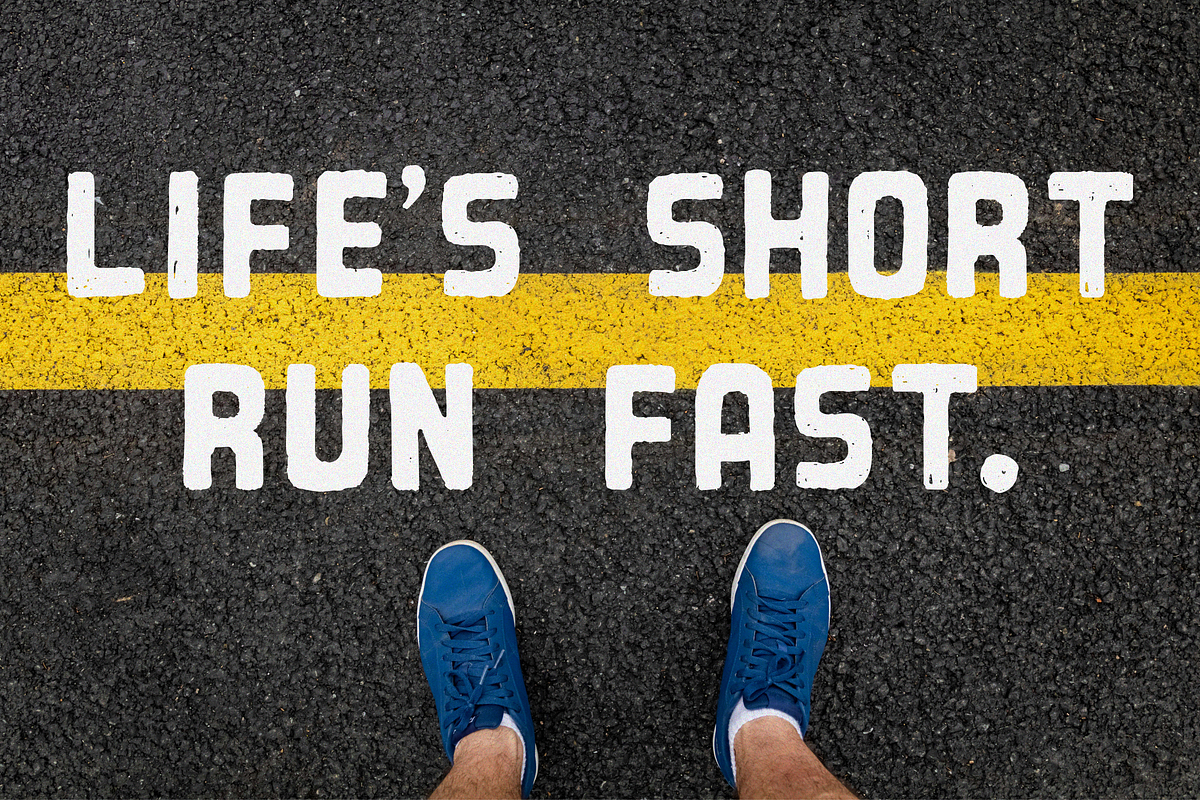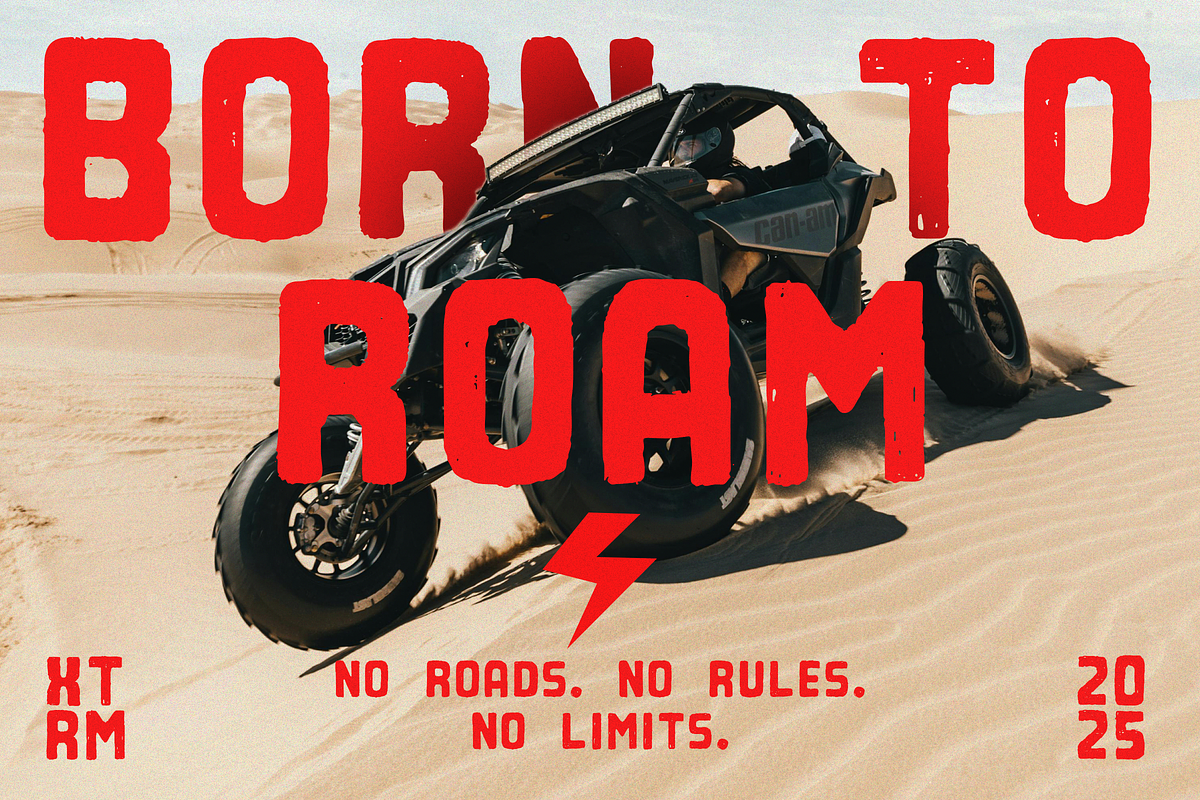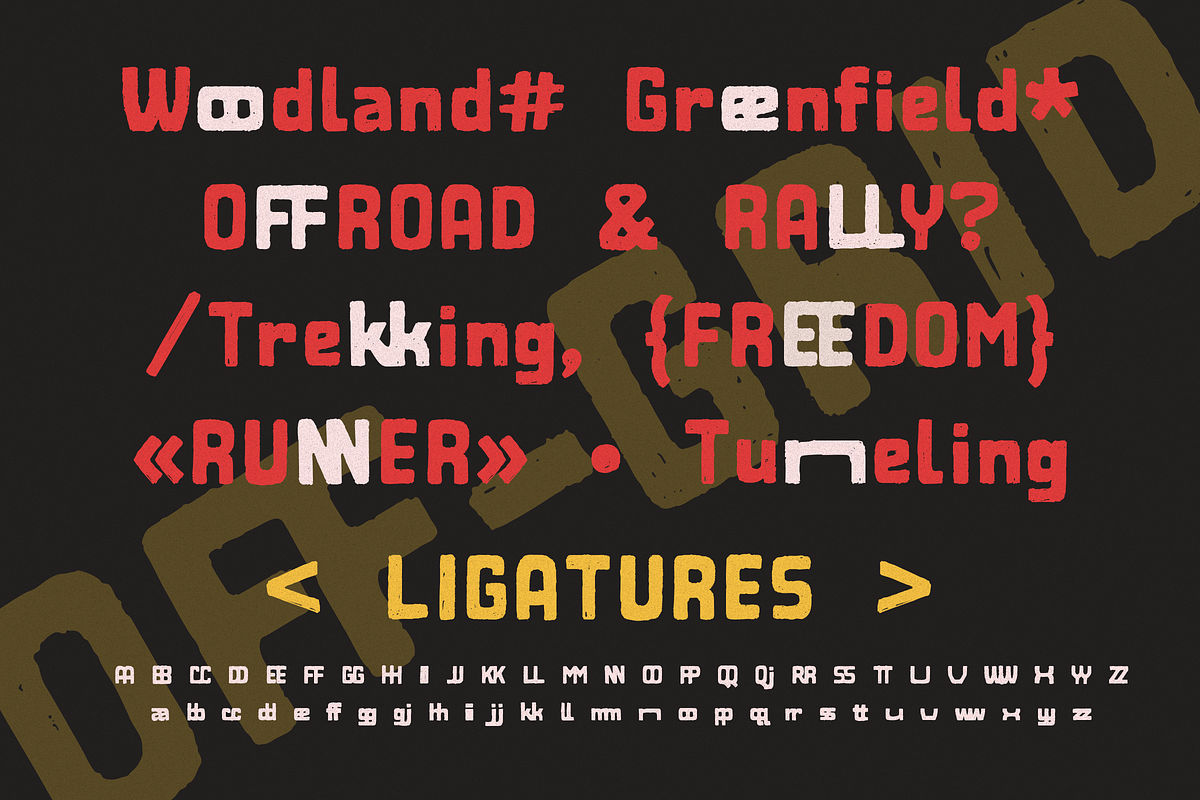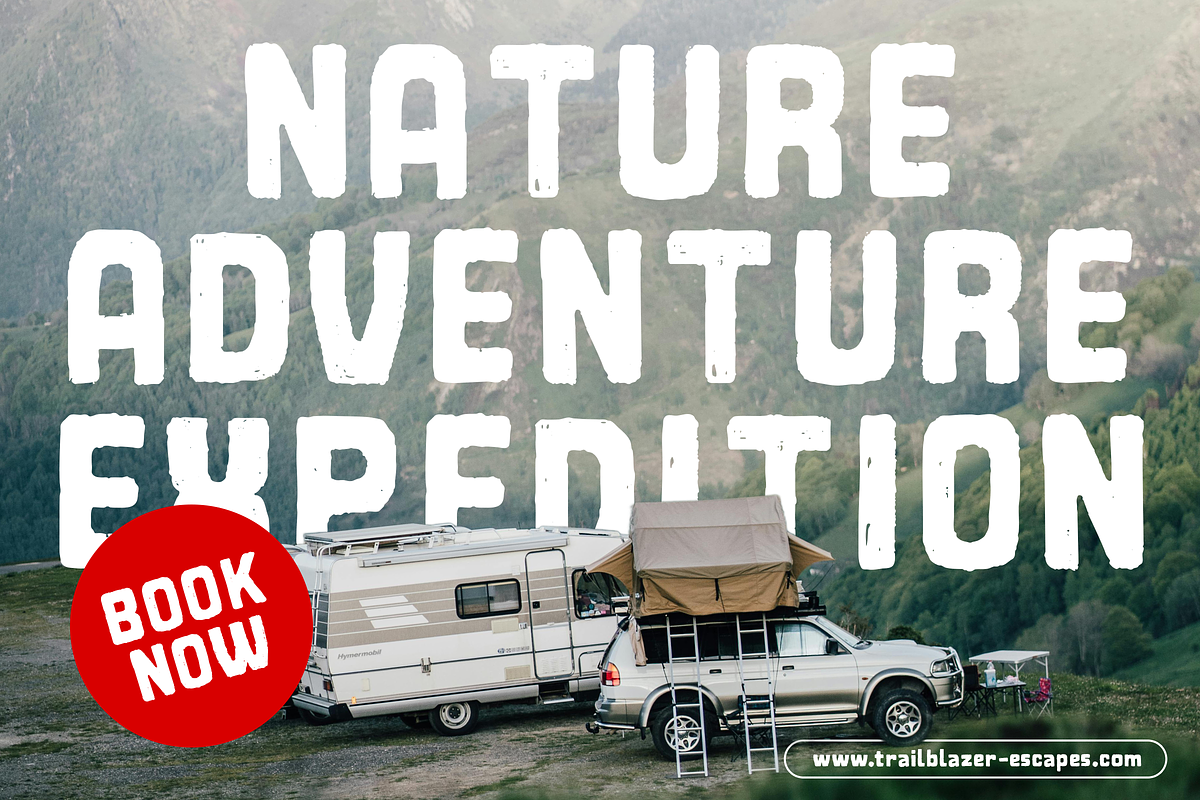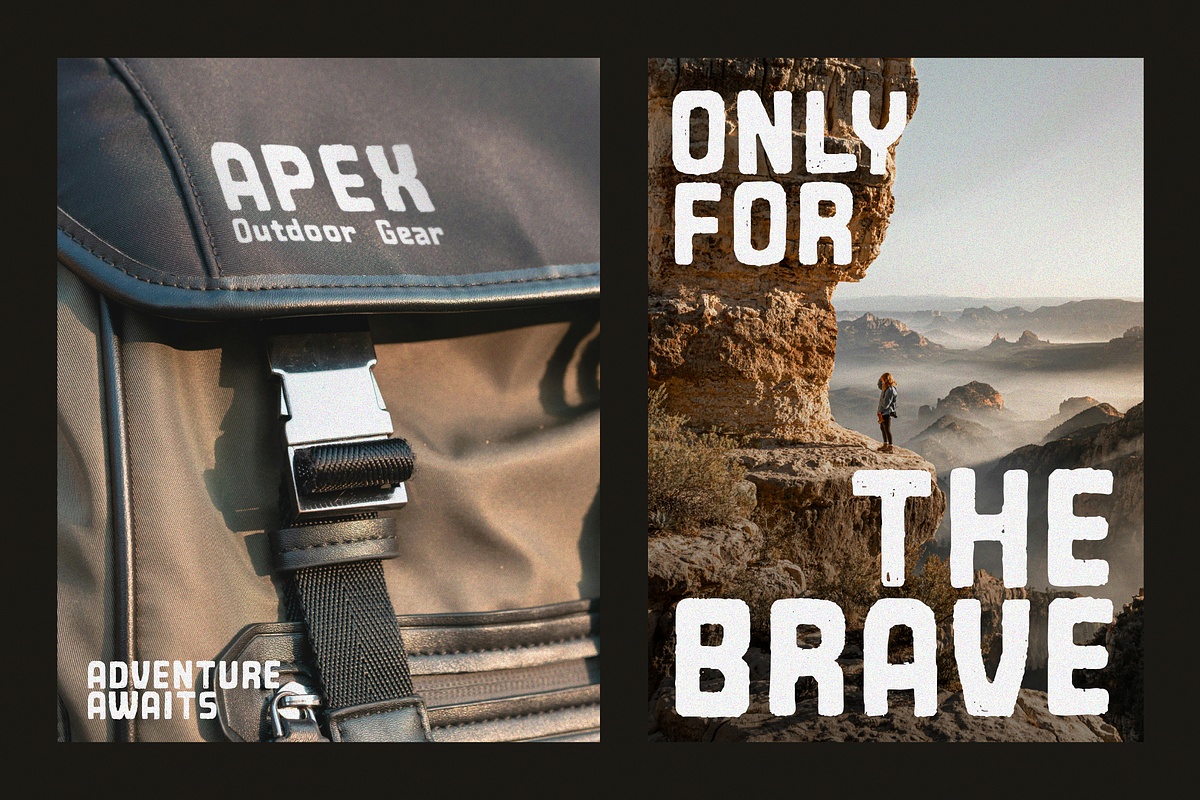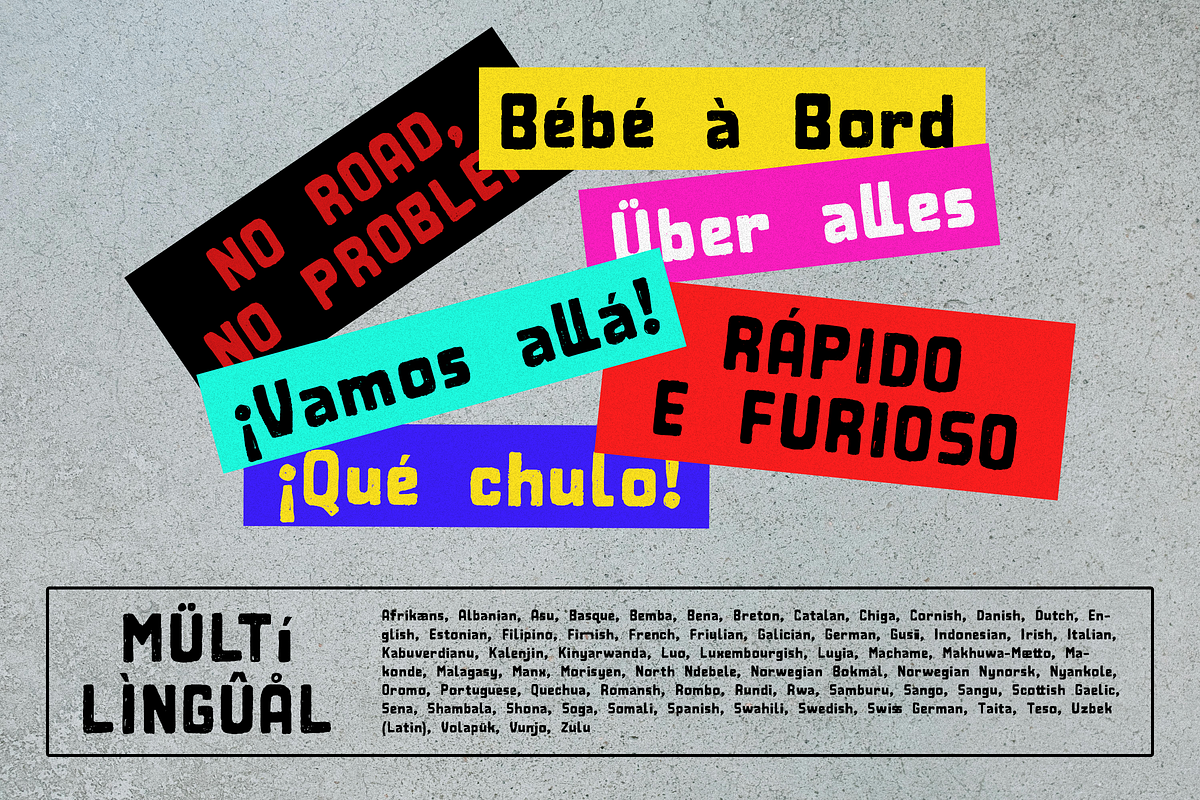
Off-Grid | Rough Hand Drawn Font
Off-Grid is a rugged hand-drawn sans serif built for the wild. With rough edges and bold simplicity, this typeface brings raw energy to outdoor inspired branding and design.
Perfect for adventure gear branding, travel blogs, eco packaging and lifestyle apparel. Off-Grid adds grit and personality without overcomplicating your layout.
It includes uppercase and lowercase letters, numbers, punctuation, with a textured finish that gives every character a natural look. Use it when you want your message to feel natural, bold, and ready for anything.